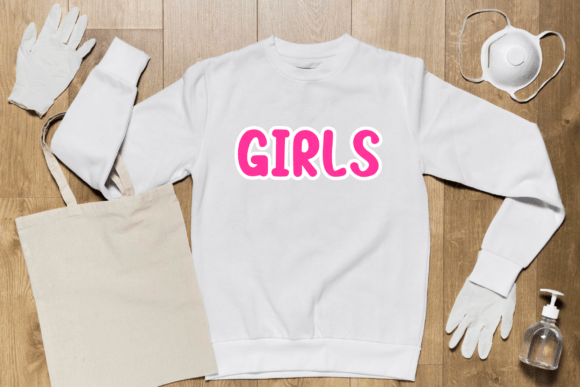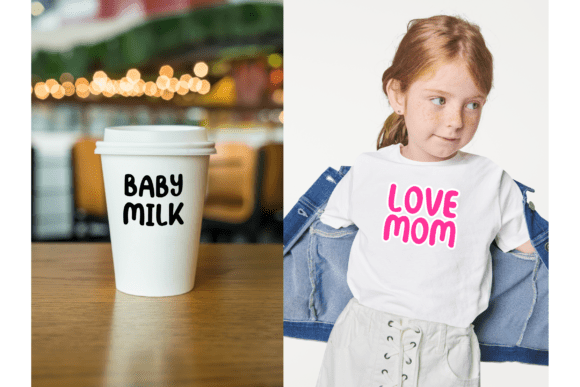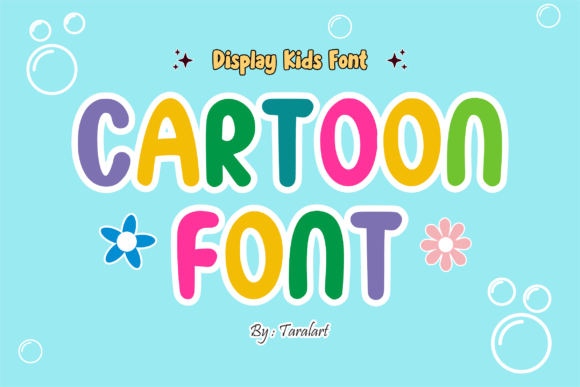
Introduction to Simple Disney Font
Introducing β€œSimple Disney” is a modern cheerful cartoon font, each character is cute so it is easy to recognize.
Perfect for sublimation design of t-shirts, mugs, tote bags, animations, comic titles, and more Pour your imagination here.
Key Features of Simple Disney Font